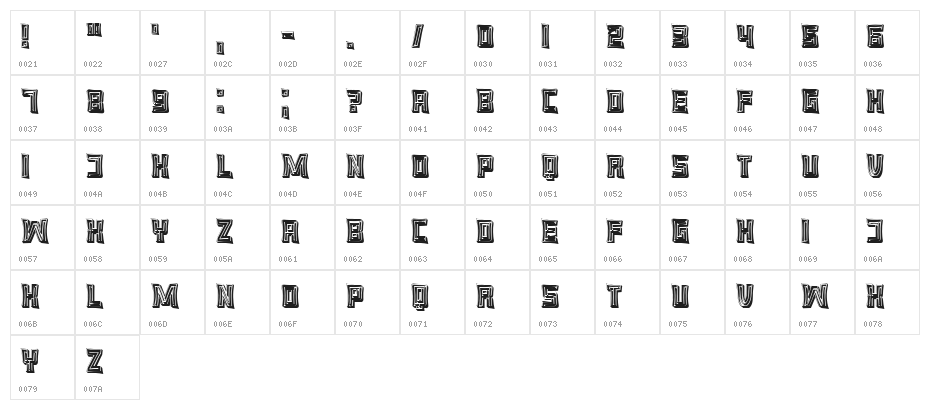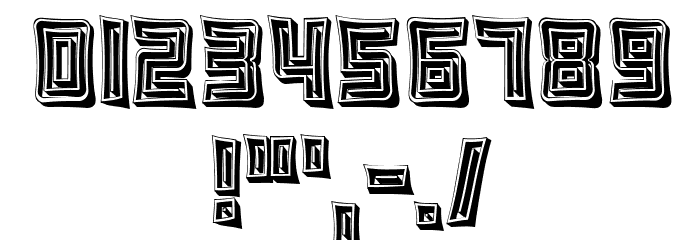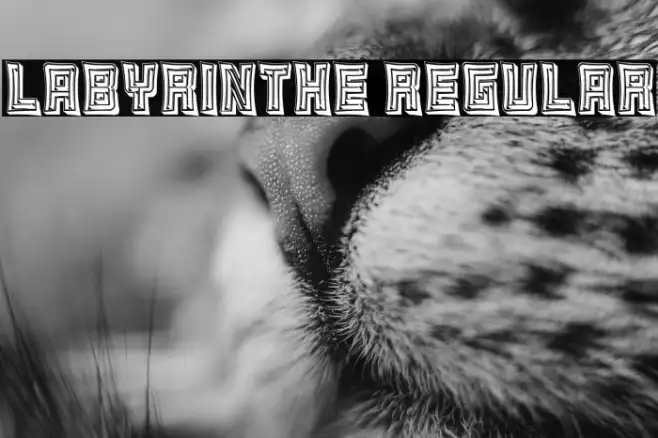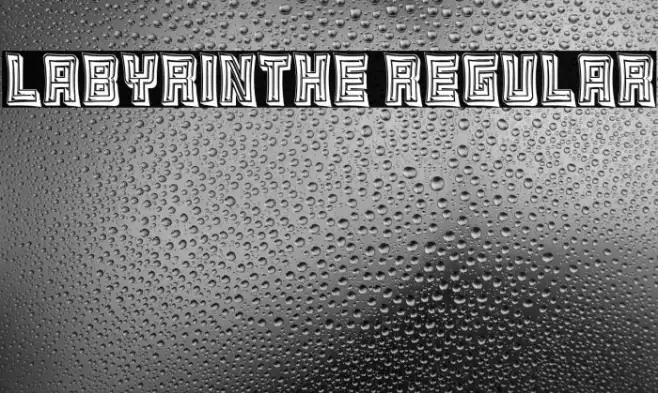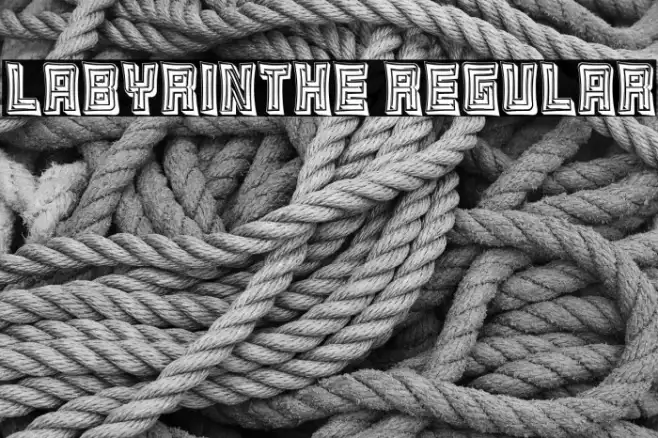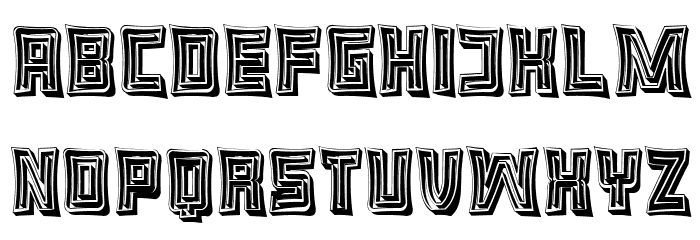
Labyrinthe Regular Font
Labyrinthe Regular Description
This font features a bold, three-dimensional appearance with a labyrinthine design that gives each character a unique, intricate look. The letters are uppercase and have a shadow effect that adds depth and complexity, making them stand out prominently. The style is highly decorative, with each character appearing as if carved from a solid block, creating a sense of solidity and strength. The numbers and special characters follow the same design principles, ensuring consistency across all elements. This font is ideal for projects that require a striking and memorable visual impact.
| Proposed Projects | Ideal for posters, logos, video game titles, and any project needing a bold, eye-catching typeface. |